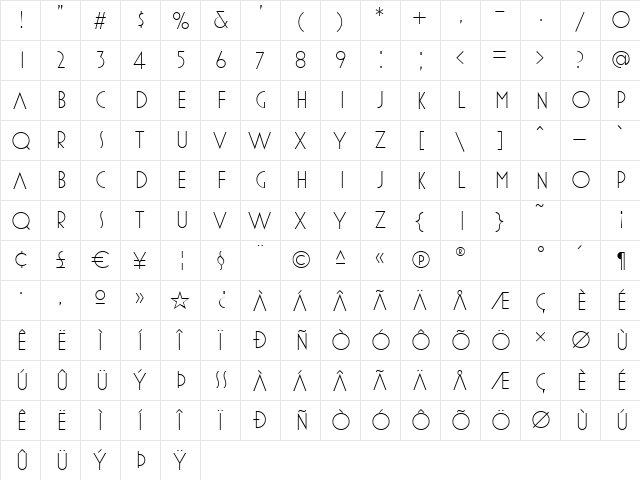
MostraThreeLight Regular
| Foundry | Mark Simonson |
| Designer | Mark Simonson |
Design Context for MostraThreeLight Typeface
MostraThreeLight is a composed and adaptable typeface that performs quietly and consistently across a wide range of design contexts. Its slender proportions lend an understated elegance to any composition.